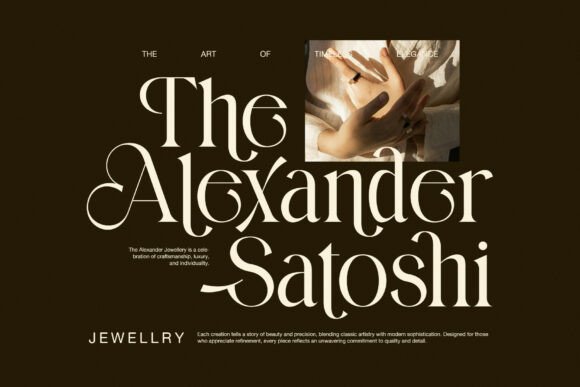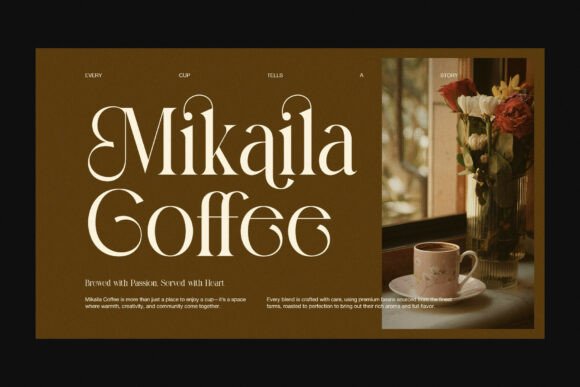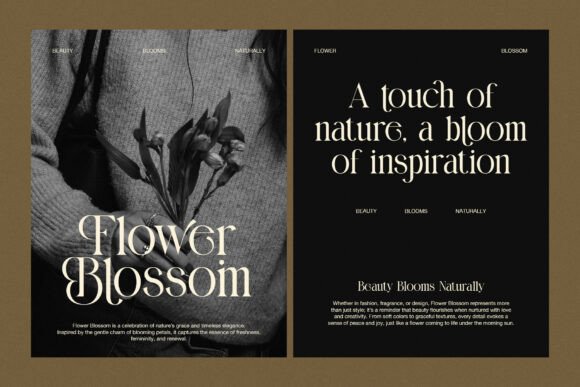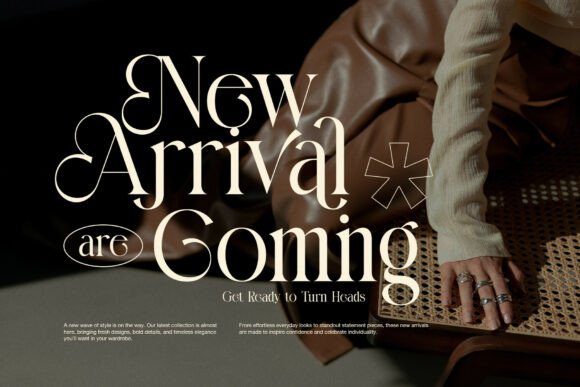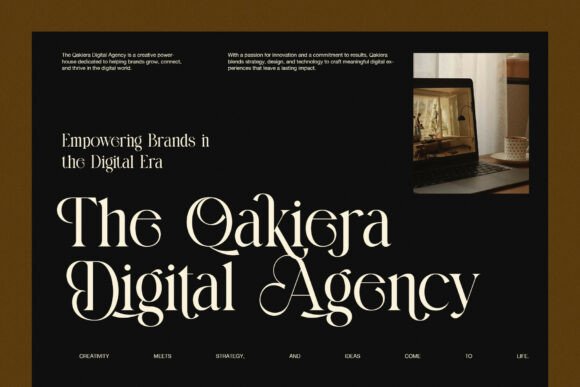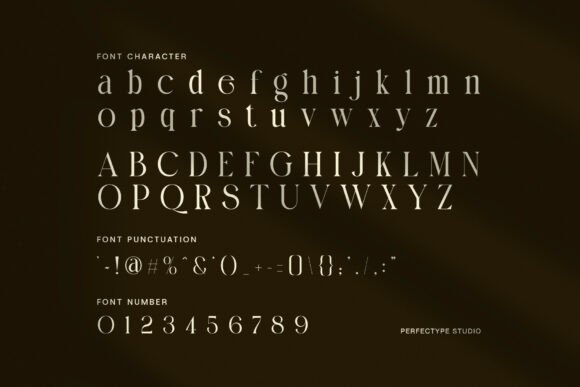
Introduction to Mellano Font
Mellano is an elegant serif font designed to express beauty, balance, and quiet confidence.
Inspired by editorial typography and refined branding, Mellano blends classic serif foundations with soft curves and graceful contrast As a result, it delivers a timeless look that feels modern, sensual, and premium.